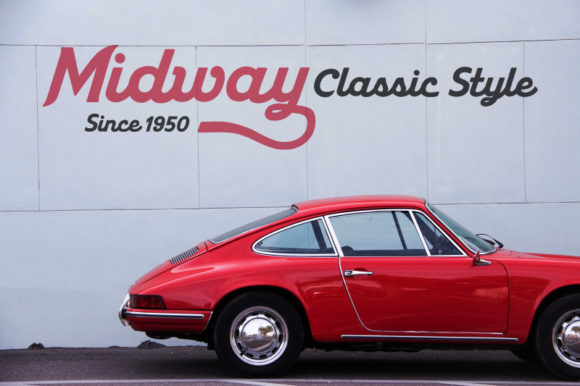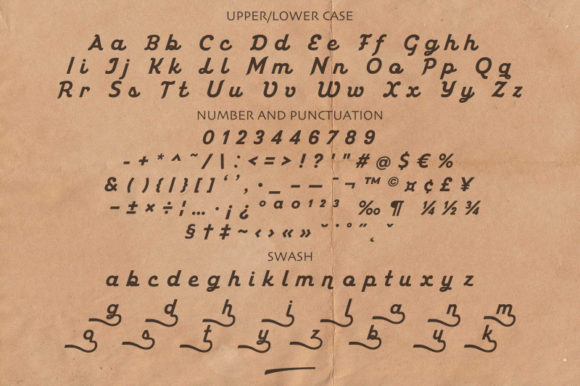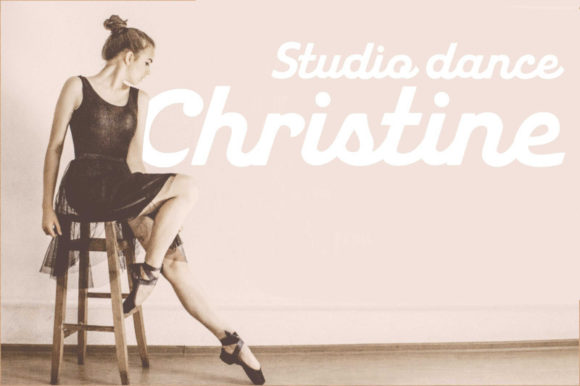
Introduction to Miniolla Font
Miniolla is a beautiful handwritten font with a casual style and classic impression.
It is perfect for anyone who needs a distinctive 70sā style Miniolla is very suitable for branding & logo projects, also suitable for Product Packaging, Article titles or book covers, Stationery, and others.